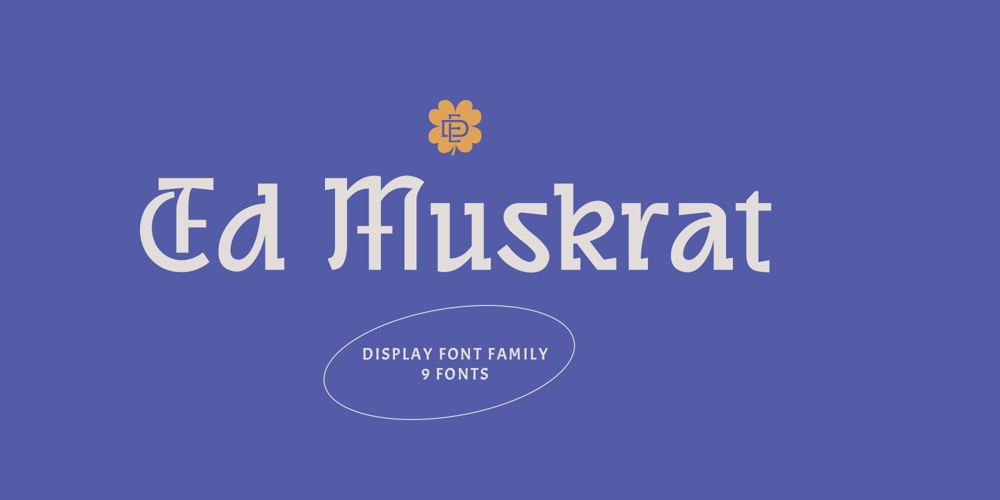
ED Muskrat Font Family was designed by Eko Setiawan and published by Emyself Design. ED Muskrat contains 9 styles and family package options. ED Muskrat is a display font family that looks elegant classic and modern, this font is designed from a combination of serif and semi blackletter fonts that add a unique feel to the font. ED Muskrat has 9 styles: Thin, ExtraLight, Light, Regular, Medium, SemiBold, Bold, ExtraBold, and Black.ED Muskrat is equipped with ligatures, alternative characters, and supports multiple languages. and also this font is perfect for your design needs such as branding, poster design, books, fashion, social media design, logos, etc.Features: Stylistic alternates ( C, E, F, I, J, N, Q, S, Z ) Ligatures ( fi , fj , tt ) 9 Styles ( Thin, ExtraLight, Light, Regular, Medium, SemiBold, Bold, ExtraBold, and Black ) Multi Language Support 373 Glyphs